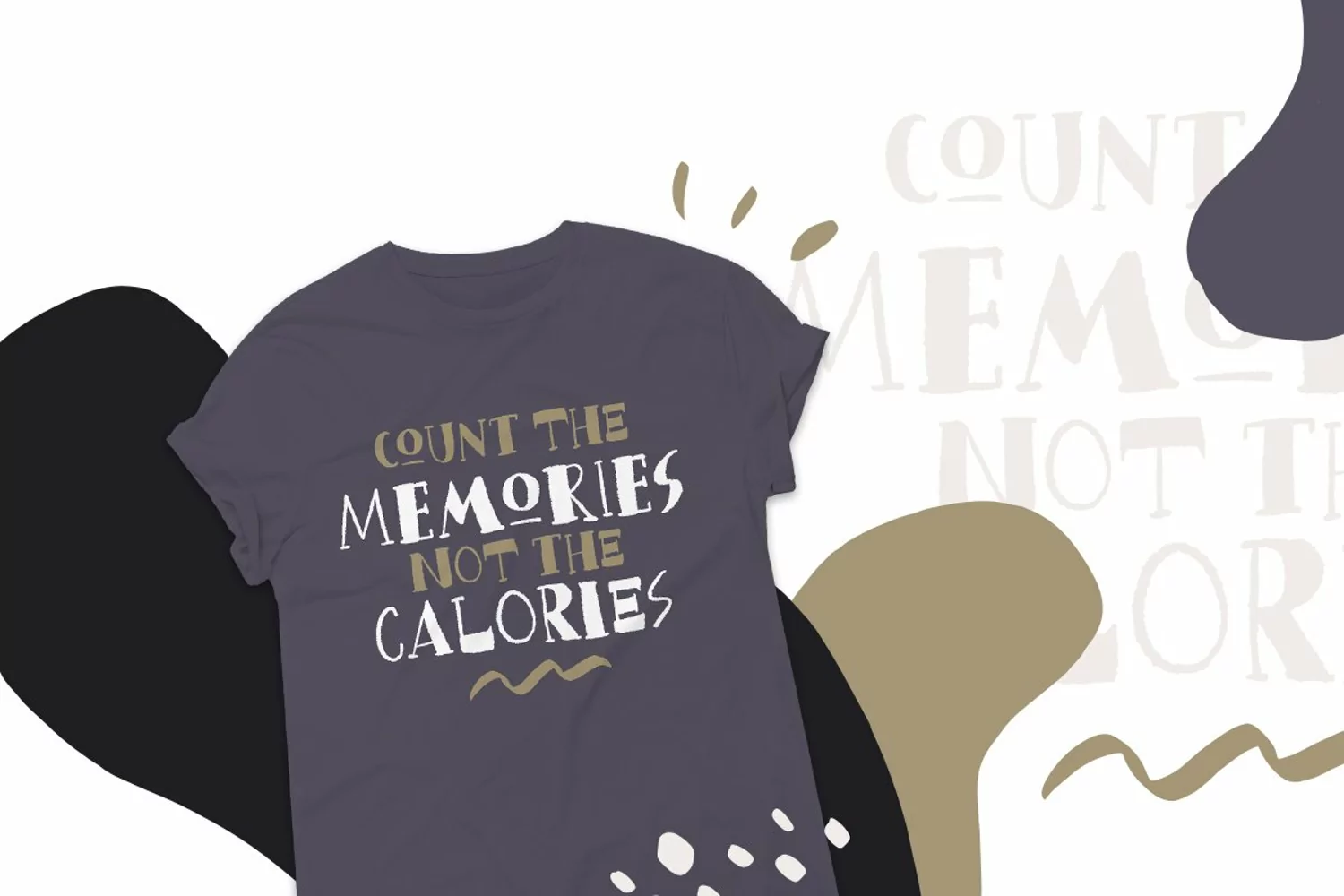
Bread Crumbs is a unique hand lettered font. It's also have a delicious taste that will make you project more stunning and give all the attentions for your works!
Bread Crumbs